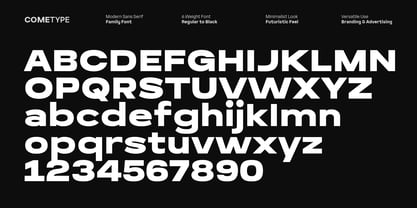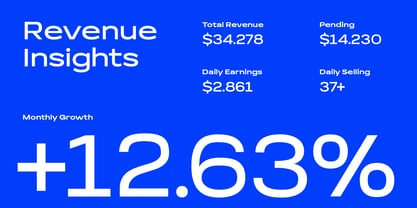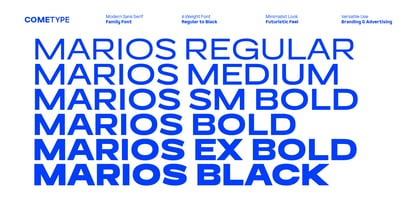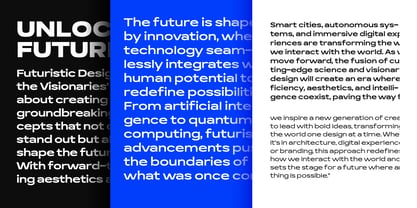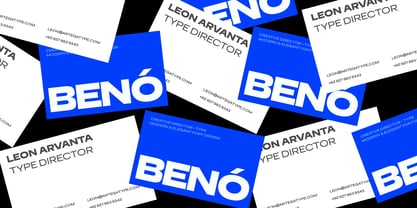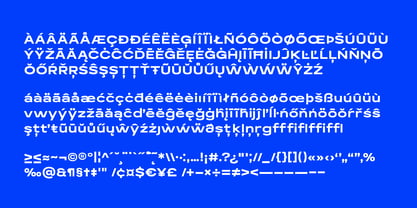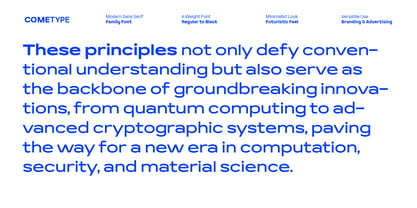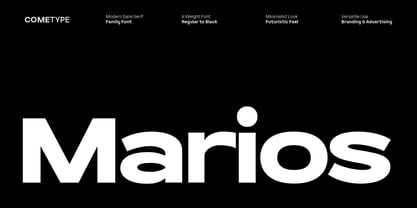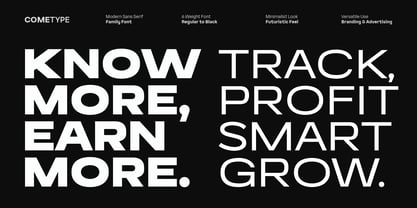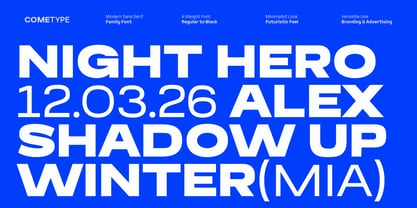
Marios
by Come Type
The Marios Font Family was designed by abdul artega and published by Come Type. Marios contains 6 styles and family package options.
Marios is a modern sans serif font with a semi-width design that combines a futuristic and minimalist feel. With 6 available weights, from Regular to Black, Marios offers flexibility for a variety of design needs. This font is perfect for use in branding, editorial, UI/UX, and other applications. Its clean and precise design gives a modern feel that fits a variety of contemporary typography needs, whether for logos, websites, applications, or printed materials.
Key Characteristics:
• 6 Weights: Regular, Medium, SemiBold, Bold, ExtraBold, Black
• Semi-Width: Provides a balanced look between compact and extended
• Futuristic Feel: Clean, modern, and precise letterforms
• Minimalist Look: Ideal for clean and professional designs
• Versatile Use: Suitable for logos, website typography, applications, and editorial
Designers: abdul artega
Publisher: Come Type
Foundry: Come Type
Design Owner: Come Type